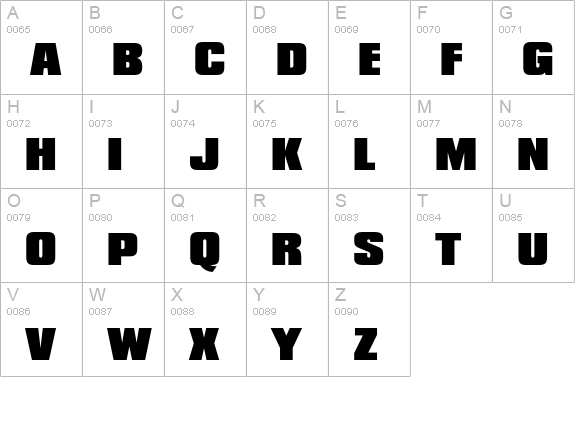
Compacta Black is a maximum-weight, dramatic variant in the Compacta typeface family \xE2\x80\x94 well suited to maximum-impact headlines, posters, and packaging.
Compacta Black is a bold and impactful typeface that exudes a sense of strength and modernity. Its clean lines and thick strokes make it perfect for headlines, posters, and branding projects that require a strong visual presence. Despite its bold appearance, Compacta Black maintains a sense of elegance and sophistication that sets it apart from other typefaces in its category. The best part? Compacta Black is available for free download at FontsMarket.com, making it accessible to designers and creatives looking to make a statement with their typography. Whether you're working on a print design or a digital project, Compacta Black is sure to add a touch of boldness and style to your work. Download it now and elevate your designs with this sleek and versatile typeface.